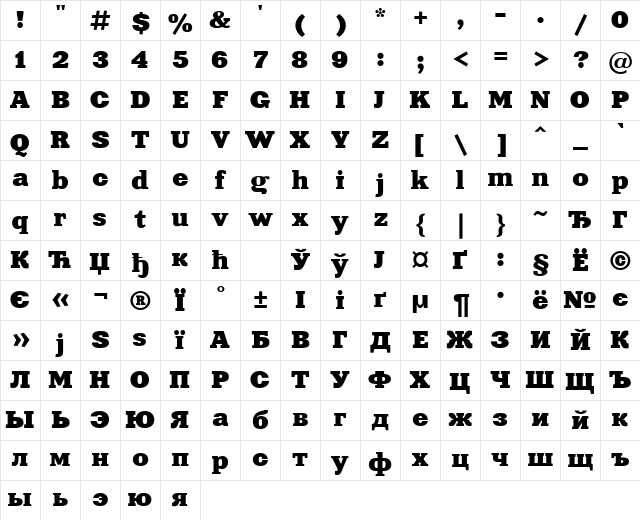
Aardvark Normal
Design Context for Aardvark
Aardvark is a composed and adaptable typeface that performs quietly and consistently across a wide range of design contexts.